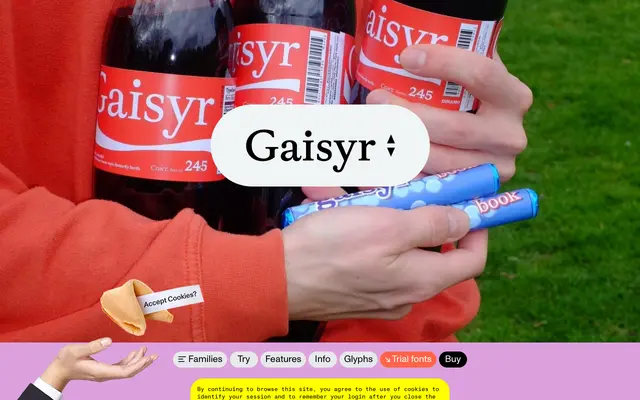
ABC Gaisyr
Dinamo Typefaces · Dinamo (Fabian Harb) with Michelangelo Nigra · 2023
A double-serif text family by Fabian Harb drawn from Jacques Jaugeon's 18th-century sketches for Louis XIV, with Mono and Semi-Mono cuts.
A serif by Fabian Harb with Michelangelo Nigra carrying Dinamo's house butterfly serifs, taking its point of departure from sketches by Jacques Jaugeon, the early 18th-century royal typographer for Louis XIV. Holds a tension between strict geometric rationality and looped, hand-held gestures, and runs across six weights plus italics in proportional, monospaced and semi-monospaced cuts, with Greek and Cyrillic extensions.
Dinamo describes Gaisyr as a typeface with Dinamo house-style Butterfly Serifs, taking its starting point from sketches by 18th-century royal typographer Jacques Jaugeon, with a tension between strict geometry and hand-held gestures, available in proportional, monospaced and semi-monospaced styles plus Greek and Cyrillic.